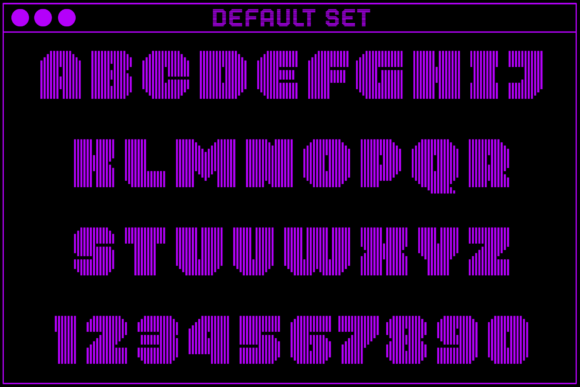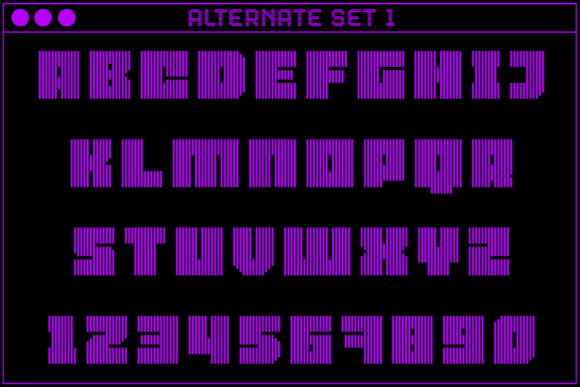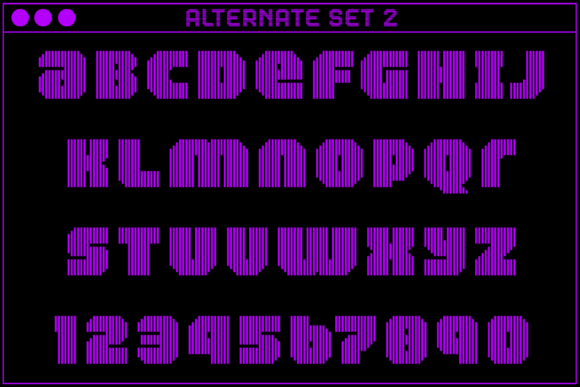
Introduction to MultiType Lines Wide Bold Font
Have you ever stared at a blank canvas, feeling like you’ve seen every font style under the sun? The creative process can be a thrilling adventure, but sometimes it’s the small, unexpected details that make all the difference. For designers, finding that perfect font can be the game-changer that brings a project to life.
Enter MultiType Lines Wide Bold Font, a pixelated gem that adds a touch of gritty cool to any design. With its uniquely shaped characters and bold, wide lines, this font is the perfect addition to any creative project. Whether you’re working on a graphic novel, a music album cover, or a social media campaign, MultiType Lines Wide Bold Font is sure to bring a high-quality, eye-catching element to your design.
Key Features of MultiType Lines Wide Bold Font
- Unique, bold font style with wide lines, perfect for adding a touch of elegance to any design.
- Resolution-independent design, suitable for use at any size, from small text to large headings.
- Perfect for use in graphic design, digital art, and other creative projects where a bold, eye-catching font is needed.
- Includes a wide range of characters, including uppercase and lowercase letters, numbers, and punctuation marks.
Honest Review: MultiType Lines Wide Bold Font
I recently stumbled upon the MultiType Lines Wide Bold Font, and I must say it’s a great addition to any designer’s toolkit. This font is perfect for any creative project that requires a high-quality, bold font with a wide line width.
- ✨ High-quality design: The font is well-crafted, with smooth lines and a consistent weight.
- ✨ Versatile: It’s perfect for use in a variety of creative projects, from logos to infographics.
- ⚠️ Limited font styles: While the font is available in bold, it would be great to see more font styles available.
- ⚠️ Limited language support: The font may not support all languages, which could be a limitation for designers working on international projects.
Overall, I’m impressed with the MultiType Lines Wide Bold Font. It’s a great design resource that’s perfect for any creative project. While it has a few limitations, it’s a great addition to any designer’s toolkit.
The MultiType Lines Wide Bold Font is a high-quality design resource ideal for creative projects requiring a unique and eye-catching style. This versatile font features a wide range of lines and bold typography, perfect for adding depth and visual interest to your designs.
- Experiment with different line widths and styles to achieve the desired effect.
- Use the font in conjunction with other design elements, such as graphics and images, to create a visually appealing composition.
The MultiType Lines Wide Bold Font is suitable for a wide range of creative projects, including:
- Infographics and data visualizations.
- Business cards and brochures.
- Posters and advertisements.
- Web design and development.
Q: What is the recommended size for using the MultiType Lines Wide Bold Font in a design project?
The recommended size for using the MultiType Lines Wide Bold Font depends on the specific design project. However, as a general rule, it’s best to use the font at a minimum size of 14pt for body text and 24pt for headings. This ensures that the font remains legible and visually appealing, even at smaller sizes.